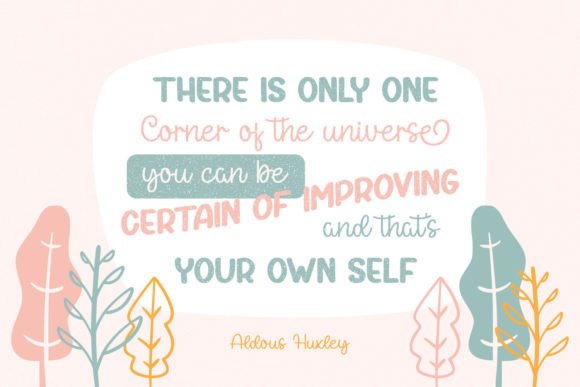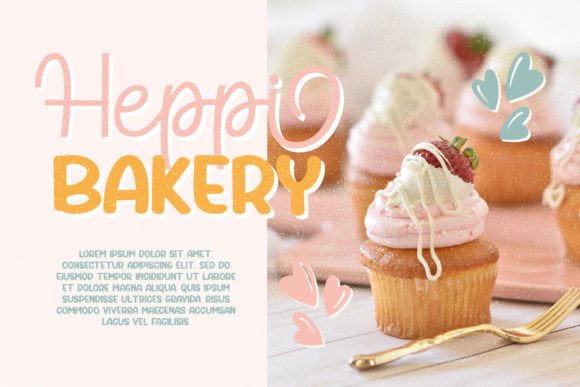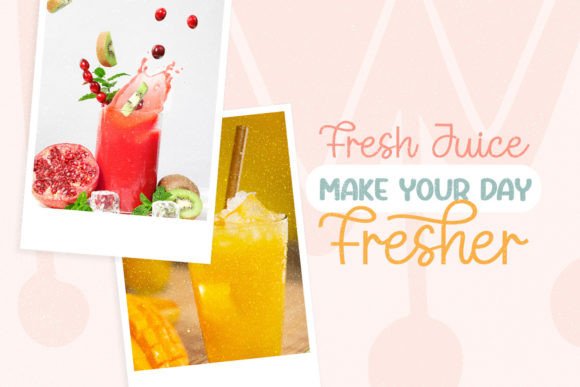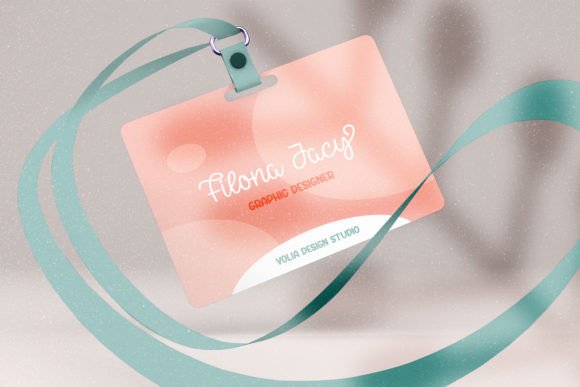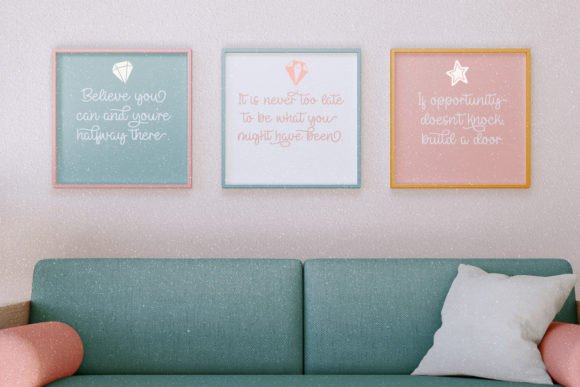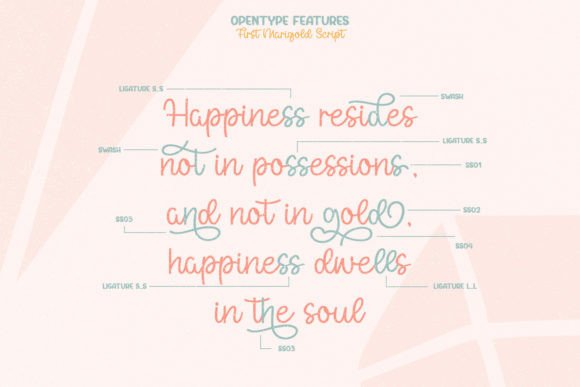
Introduction to First Marigold Duo Font
First Marigold is a cute and playful font duo combining a casual sans serif with a quirky handwritten script.
Key Features of First Marigold Duo Font